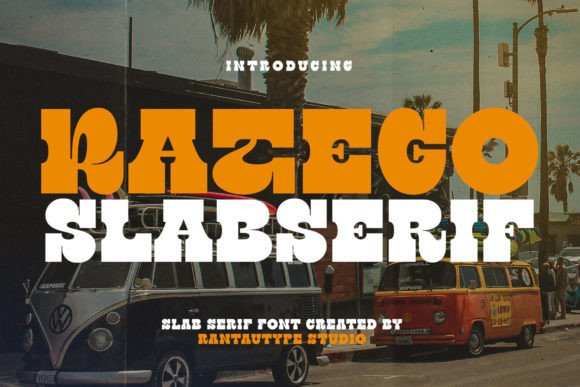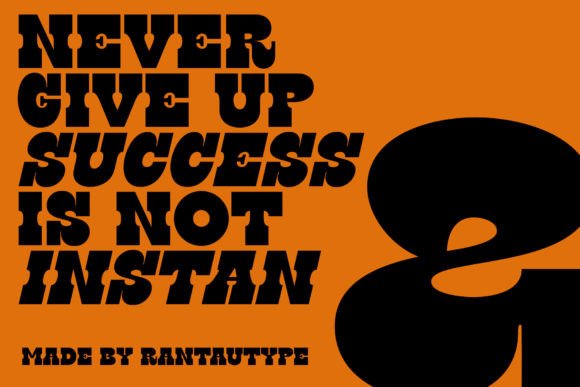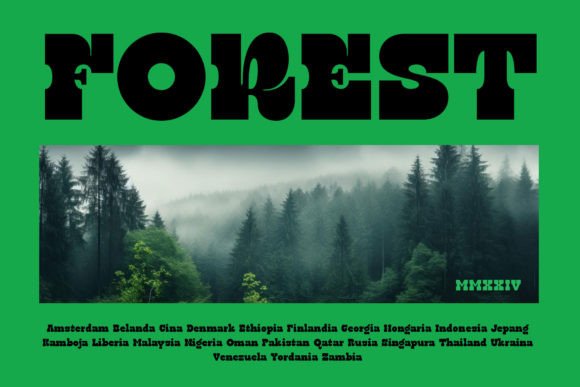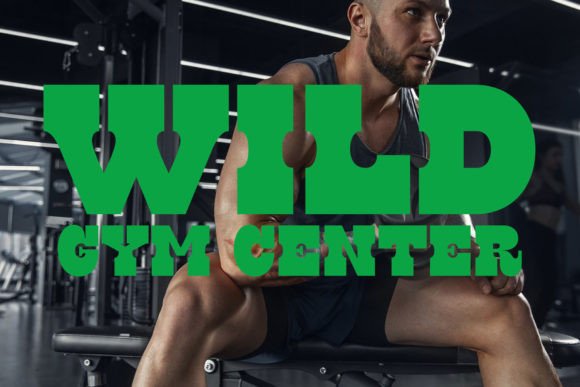
Ratego Font
About the Ratego Font
Welcome to the world of Ratego Font, a typeface that will inspire your next great project. Ratego is a vintage font with bold curves that make it look unique, funky, fun, modern, and versatile Font.
Its playful and charismatic characters evoke a sense of joy and whimsy, making it the perfect choice for projects that seek to transport audiences back in time or evoke a touch of vintage charm.
Ratego’s bold curves and playful character shine in headlines, short text blocks on posters, and branding elements where a retro-modern aesthetic is desired. It works exceptionally well for packaging of quirky products or vintage-inspired brands. However, its distinctive style makes it less suitable for body text or UI elements requiring high readability; the playful forms can hinder legibility in longer passages.
Pairing Ratego with a clean sans-serif like Open Sans for body copy provides excellent contrast and enhances readability. For a more vintage-inspired feel, consider pairing it with a classic serif such as Garamond or a slightly more geometric sans-serif such as Futura. These pairings balance Ratego’s bold energy while maintaining visual harmony.
In essence, Ratego projects a bold, fun, and slightly rebellious personality, ideal for brands seeking a retro-modern, attention-grabbing aesthetic.
Ratego Font Usage Examples
Ratego Font Example